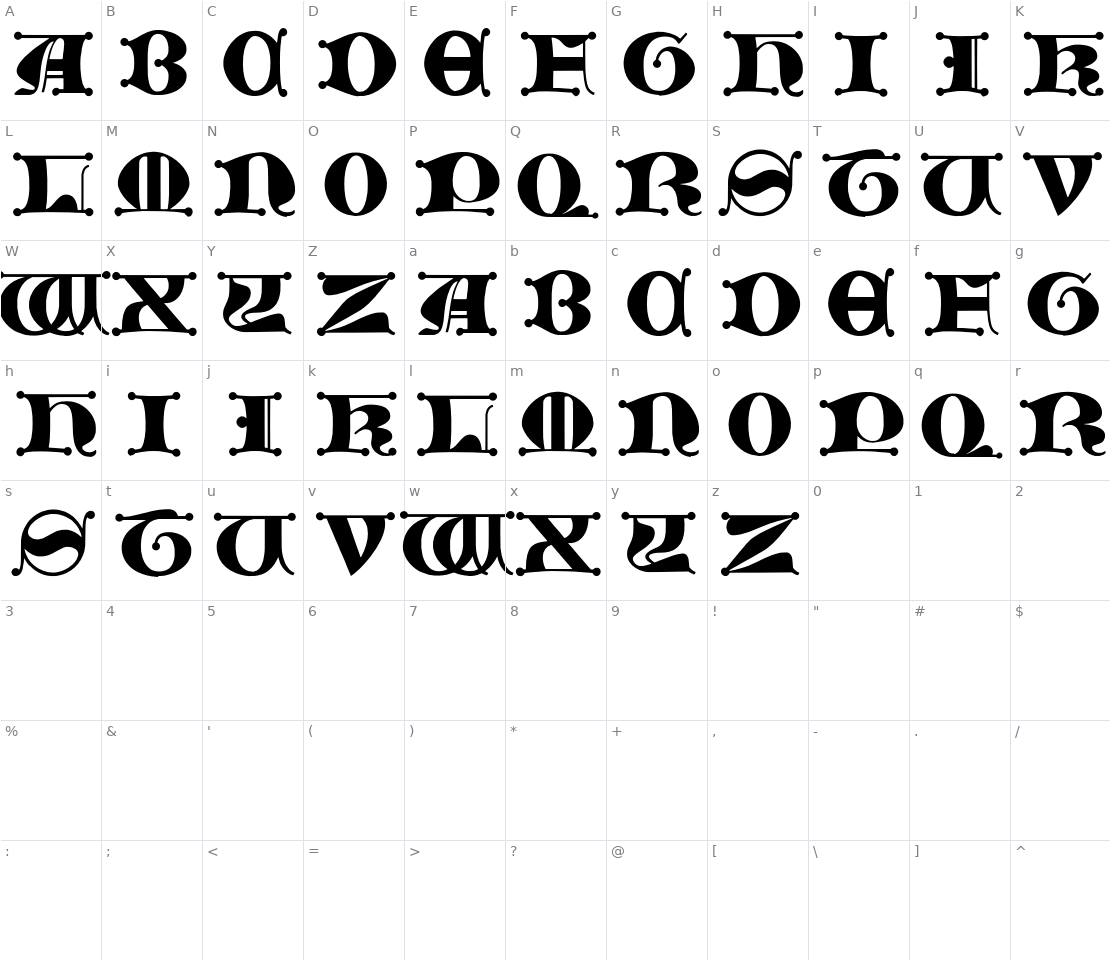
JMH Moreneta Caps II
by Jorge Mor�n
JMH Moreneta Caps II is a heavy blackletter caps face by Jorge Morán with dense, ornamental letterforms rooted in medieval gothic tradition. The bold strokes and decorative flourishes give each character a weighty, manuscript-like presence that works best at large sizes for headlines, drop caps, and period-themed design. It carries genuine darkness and formality without feeling like a costume.